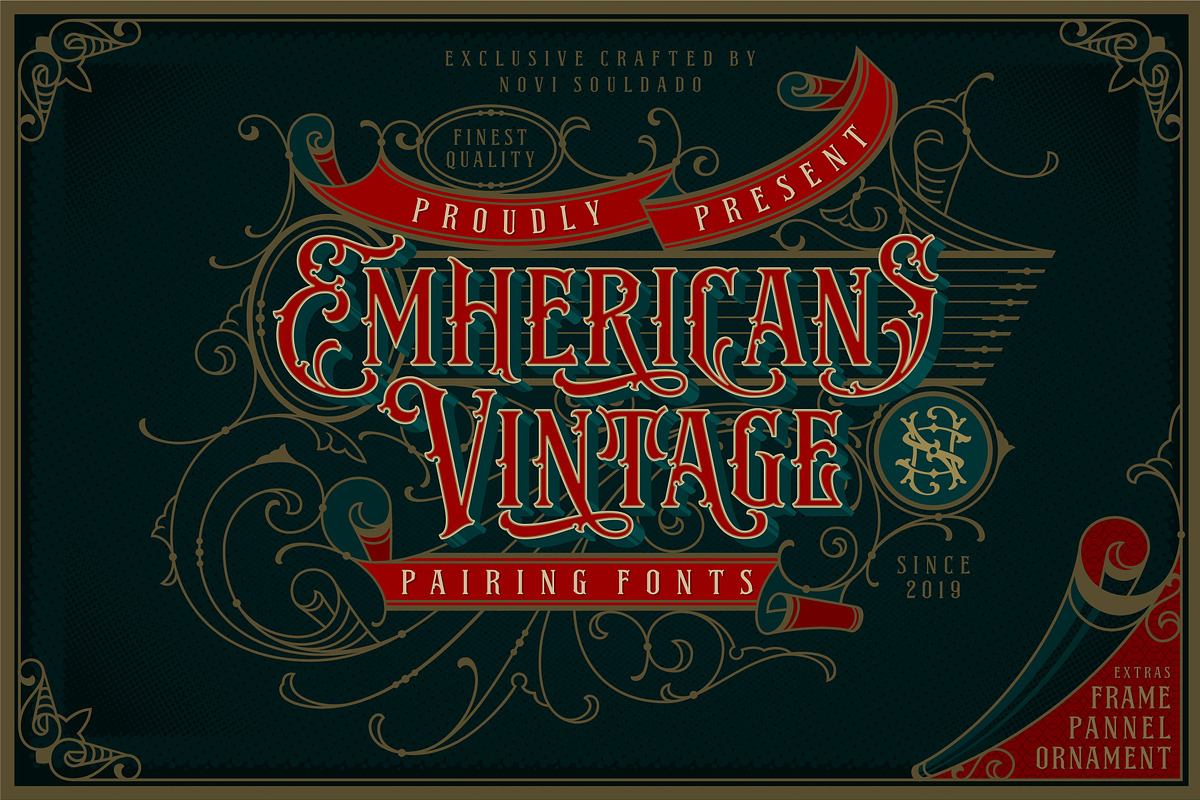
NS Emhericans Vintage Pairing Fonts Free Download
Please note, you must purchase this font for commercial use. However, you can easily download NS Emhericans Vintage Pairing Fonts Free Download for personal use and testing purposes. NS Emhericans Vintage Pairing Fonts is a versatile and stylish font bundle that combines a vintage serif and a complementary script font, designed to work seamlessly together. Perfect for retro-themed branding, posters, logos, and other creative designs, this font pair brings a nostalgic yet modern feel to your projects. The combination of bold, classic serifs with the elegant script makes NS Emhericans Vintage Pairing Fonts Free Download ideal for projects that require both character and readability. Whether you're designing for a vintage-inspired brand, event, or promotional material, this font duo will elevate your typography. Download NS Emhericans Vintage Pairing Fonts Free Download today and explore its potential before opting for a commercial license.